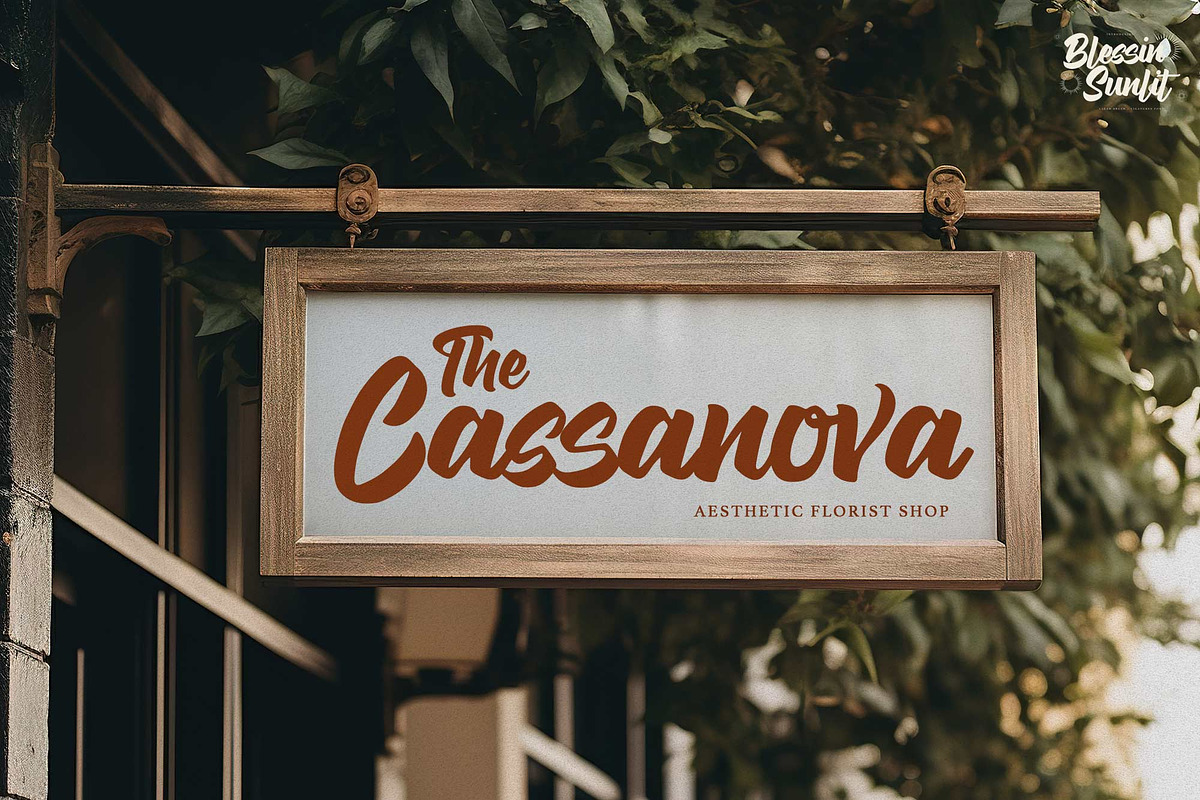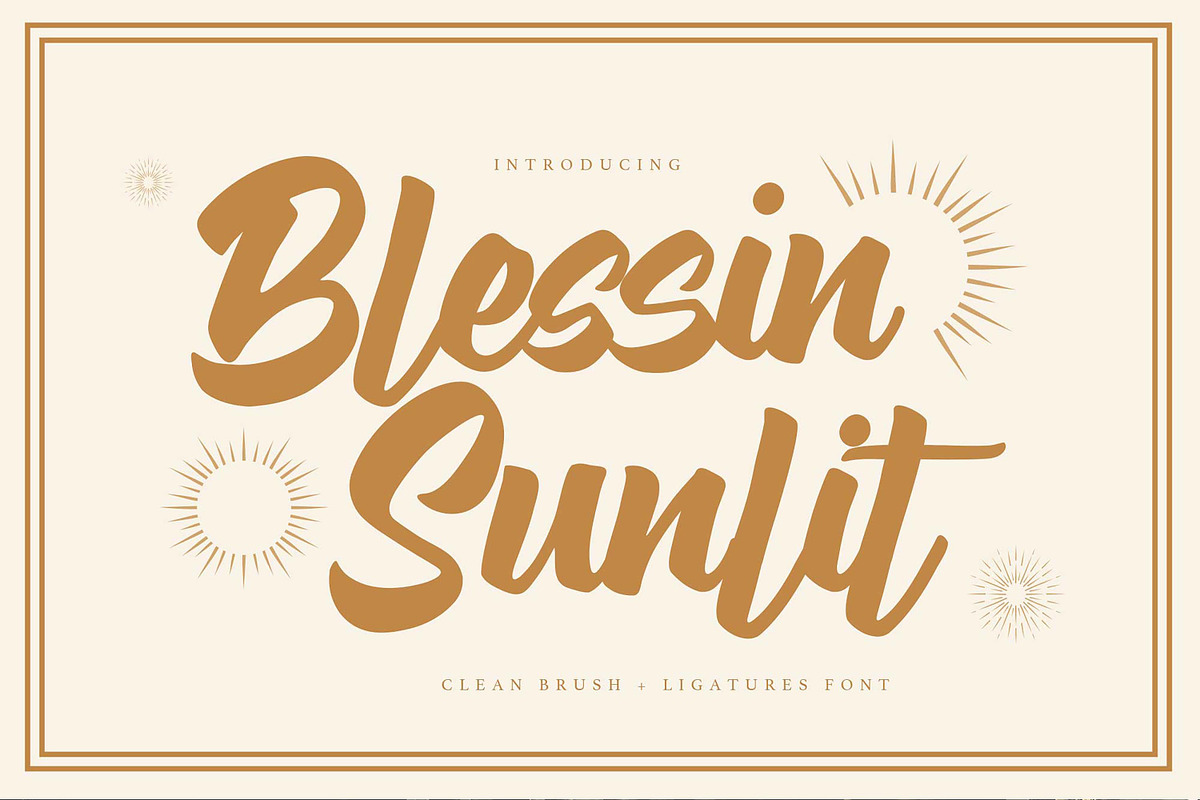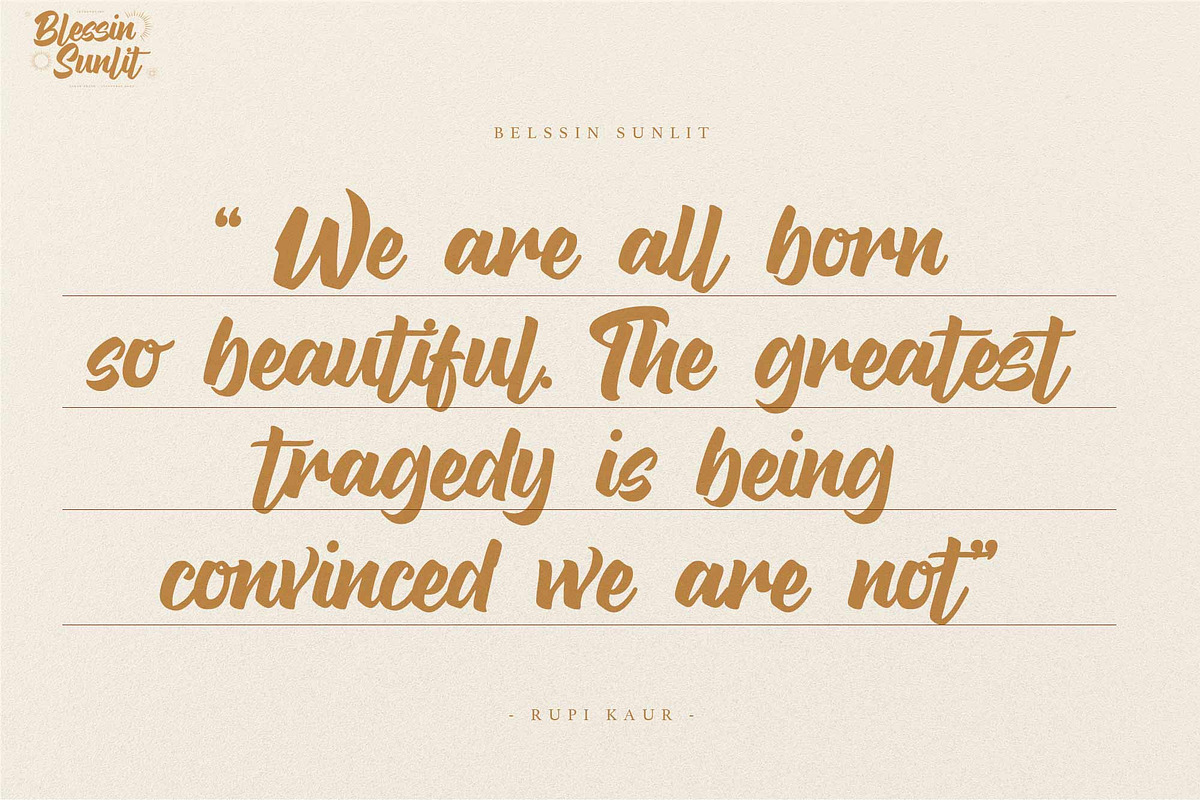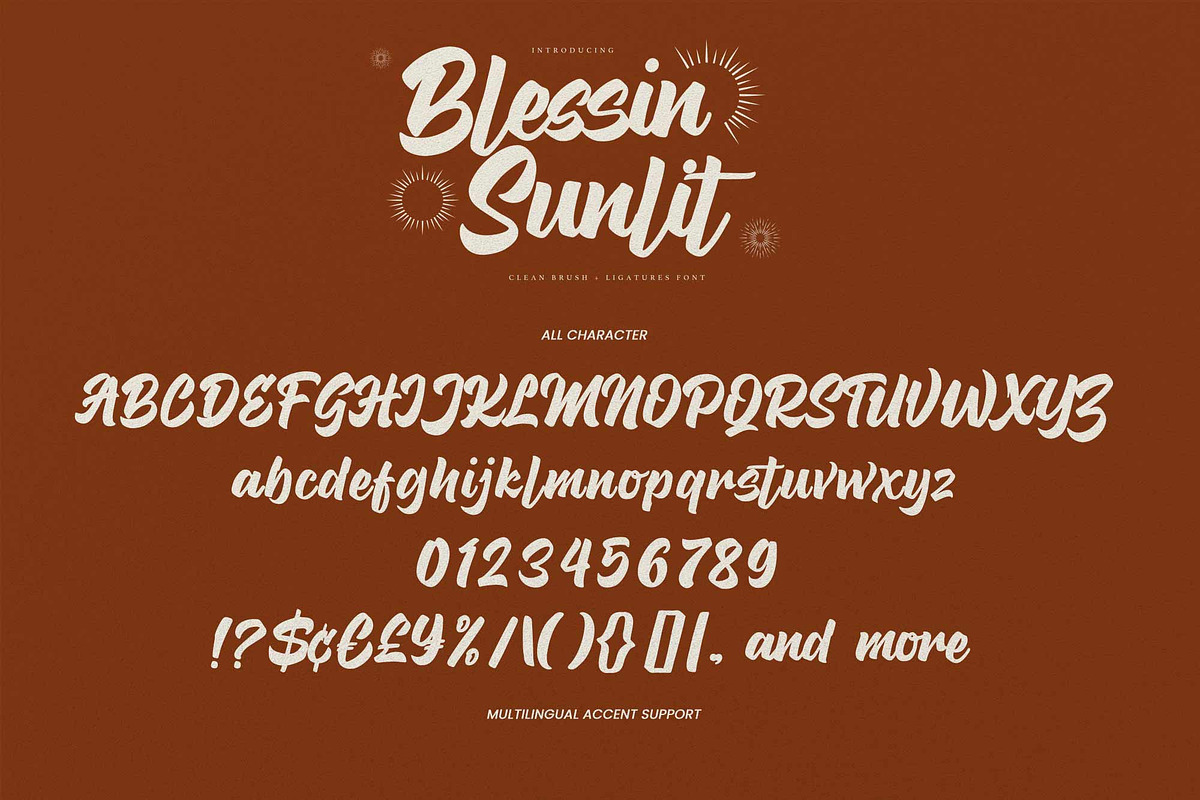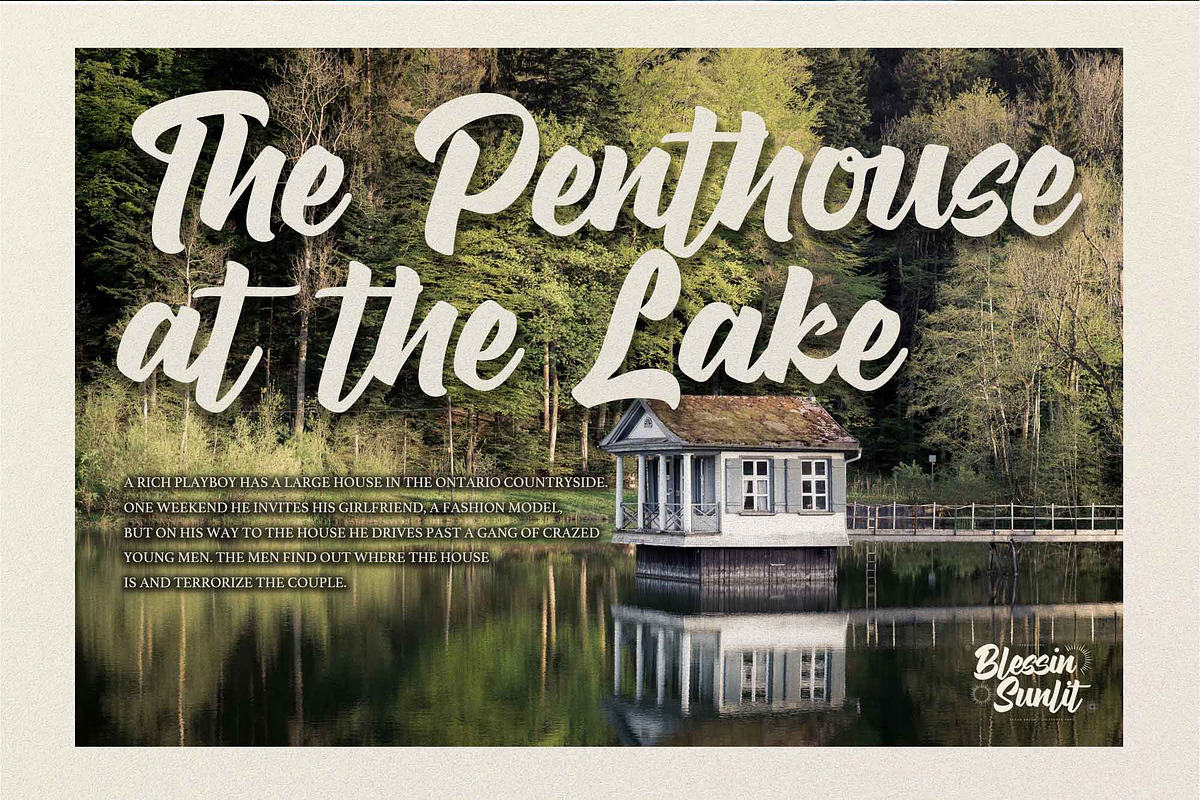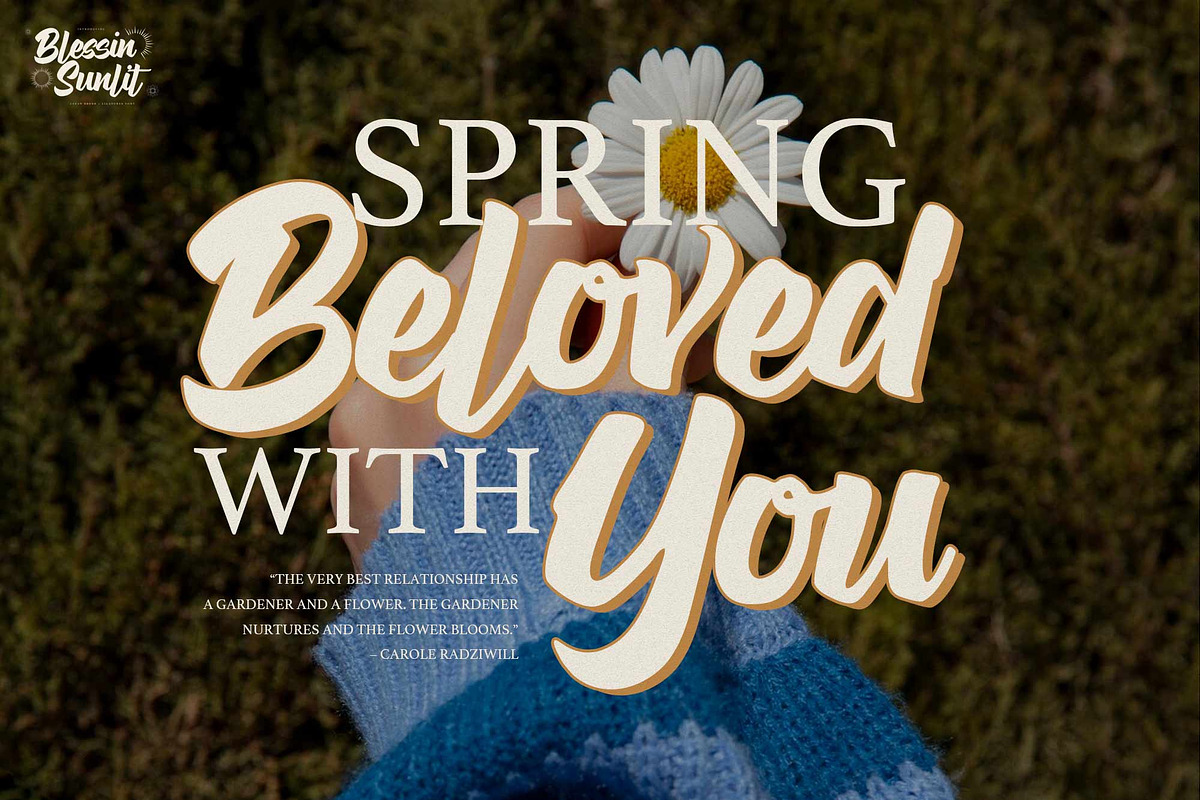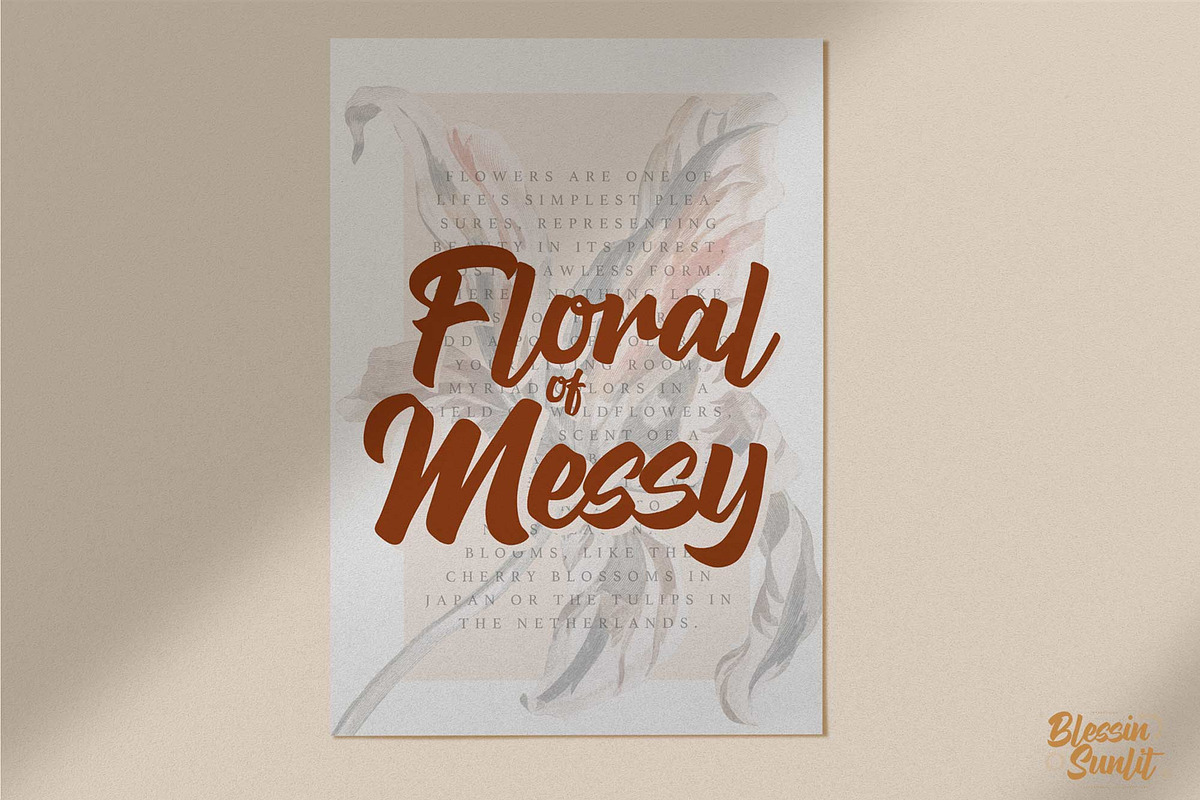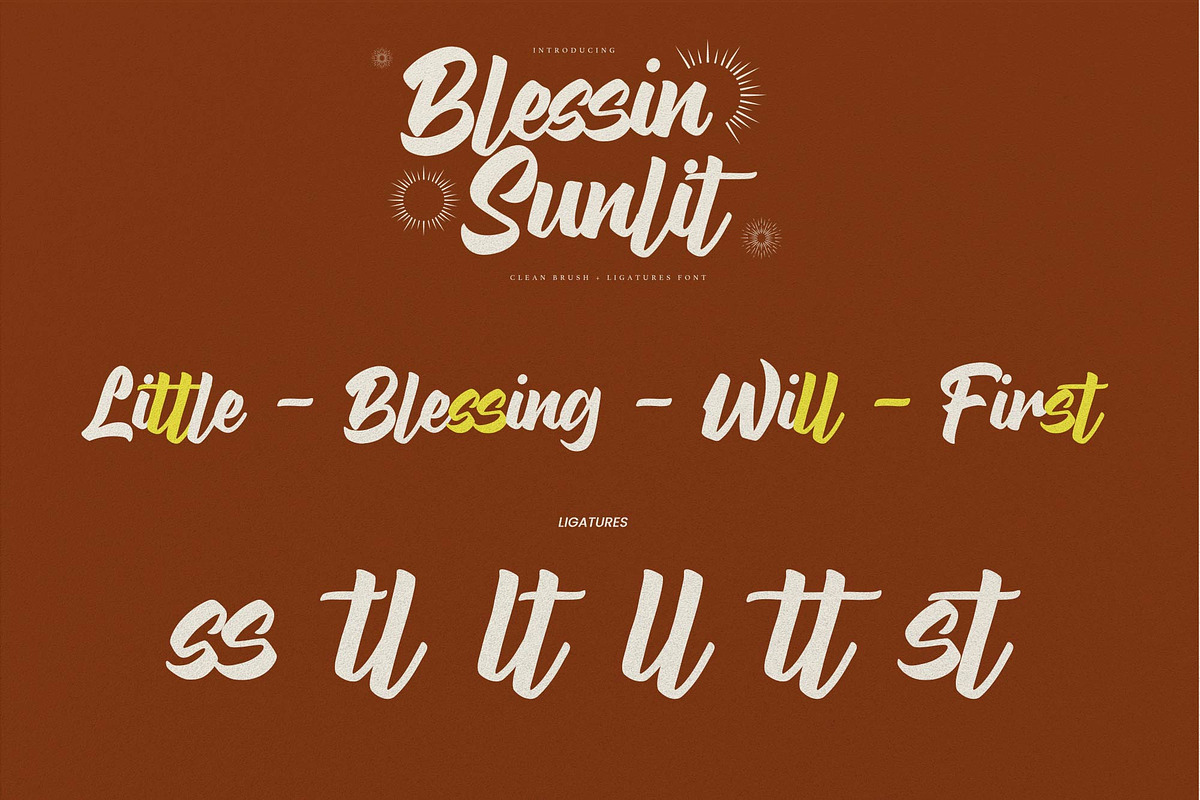
Blessin Sunlit – Clean Brush
Blessin Sunlit is a clean brush font, this is a handmade font with ligatures and handmade, this font is perfect for making a strong statement in your designs.
Logos
Posters
Product packaging
Branding
Advertisements
Invitations
Stationery
Wedding designs
Labels
Photography watermarks
Quotes
and more
Add the bold and authentic character of this Font to your next project and capture the essence of the minimalist aesthetic.